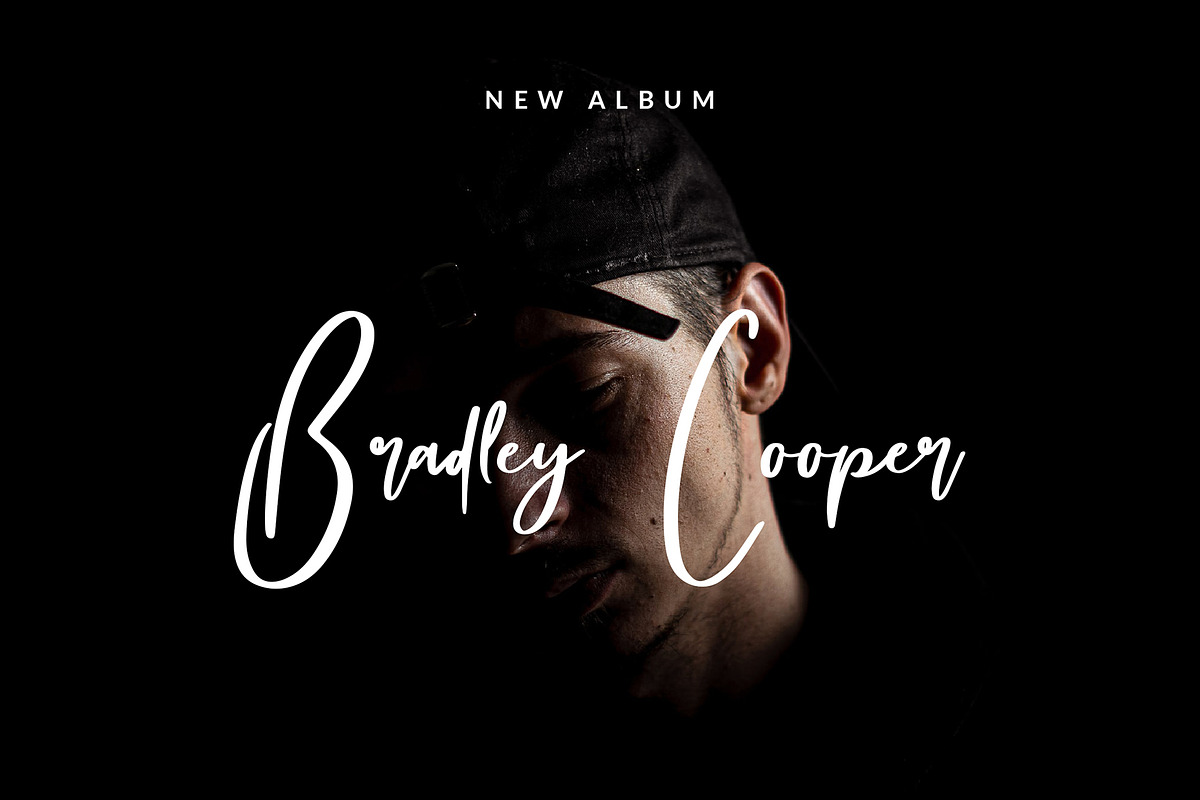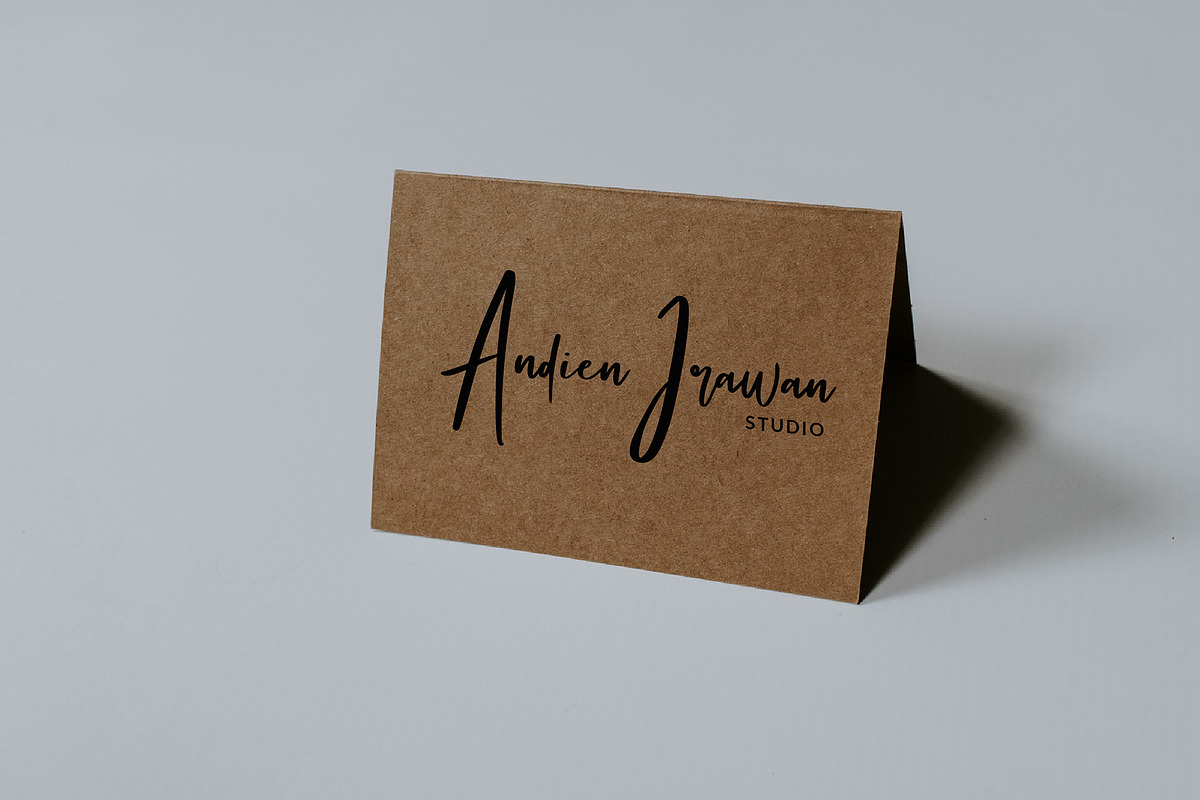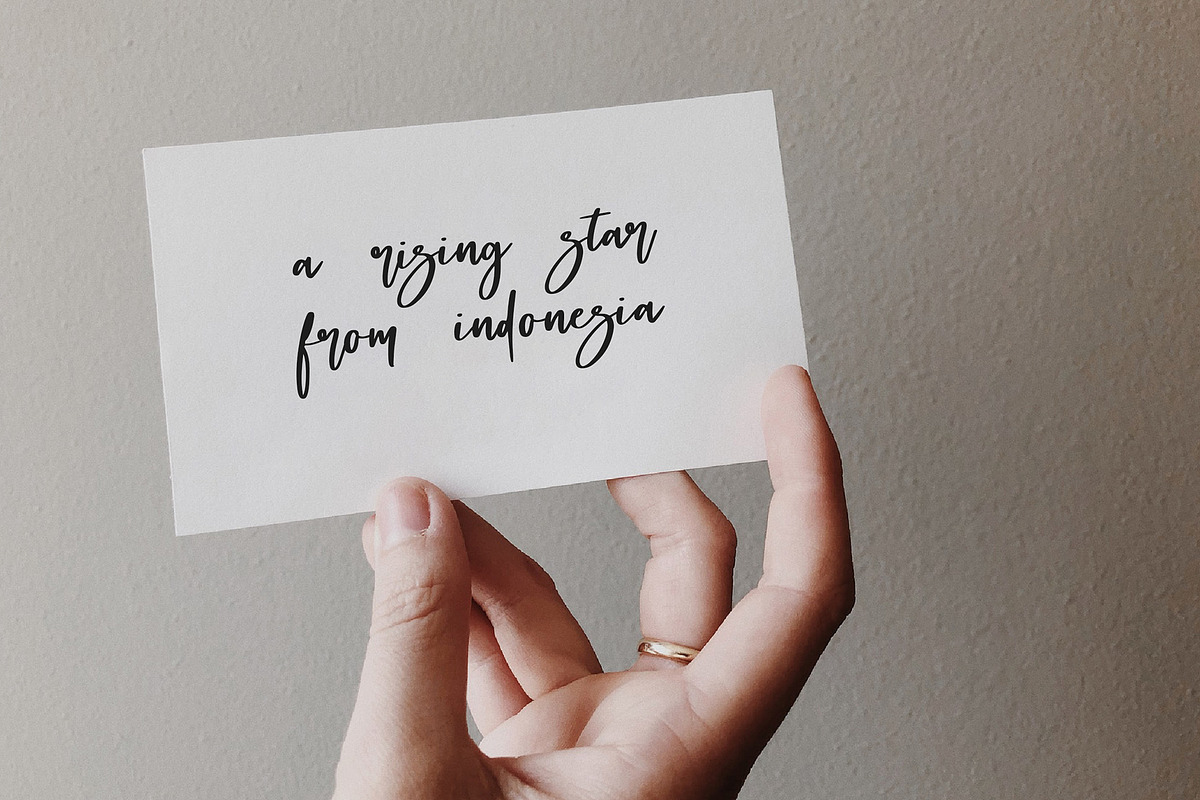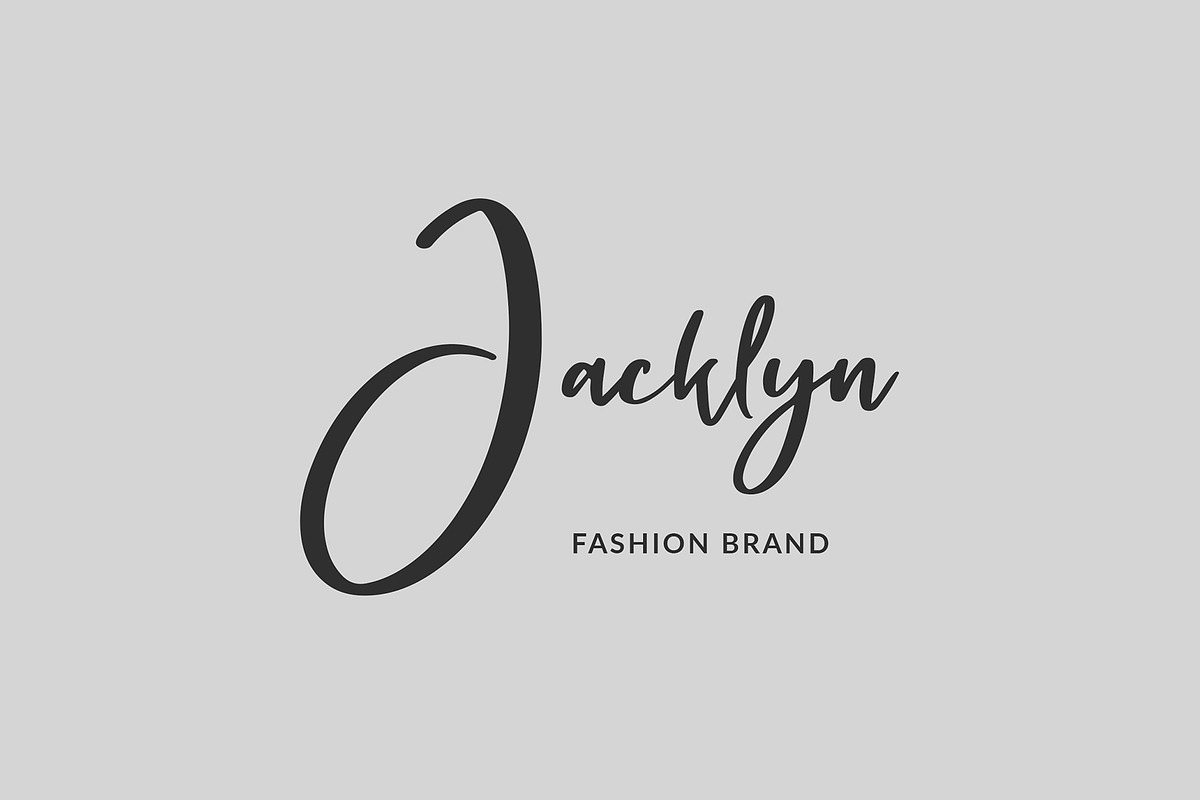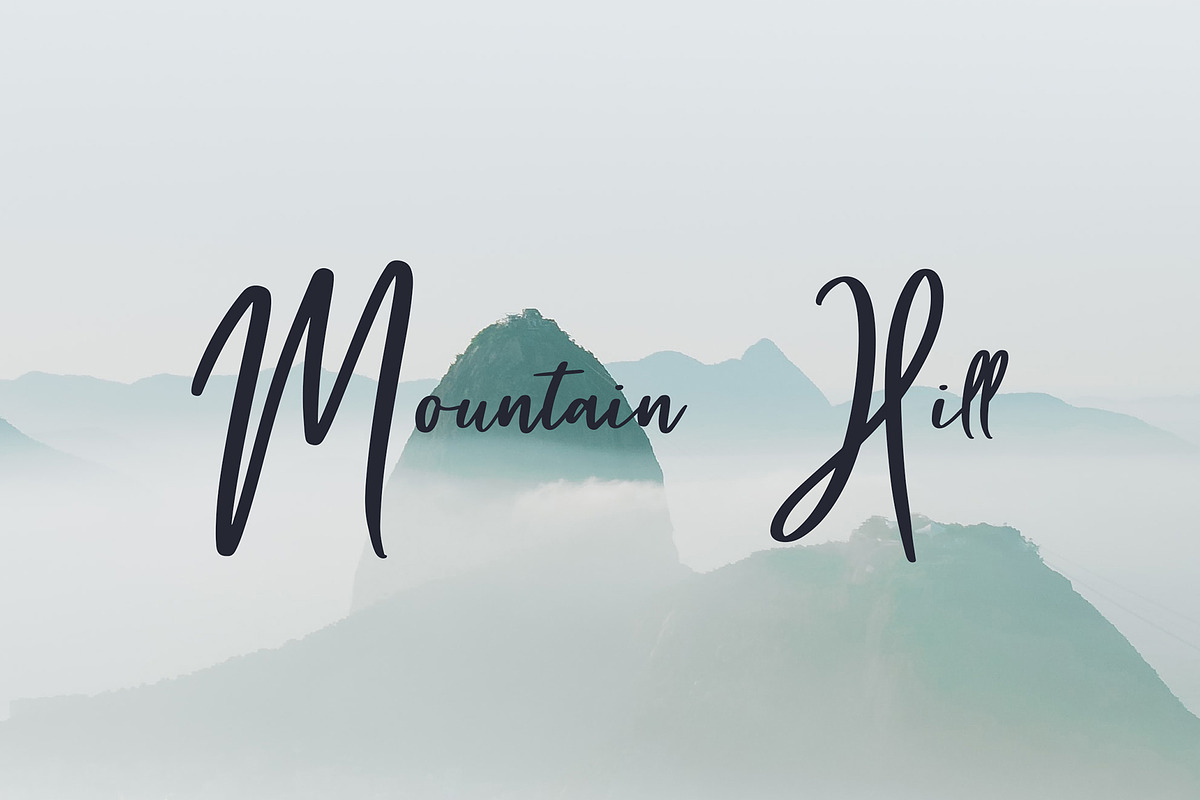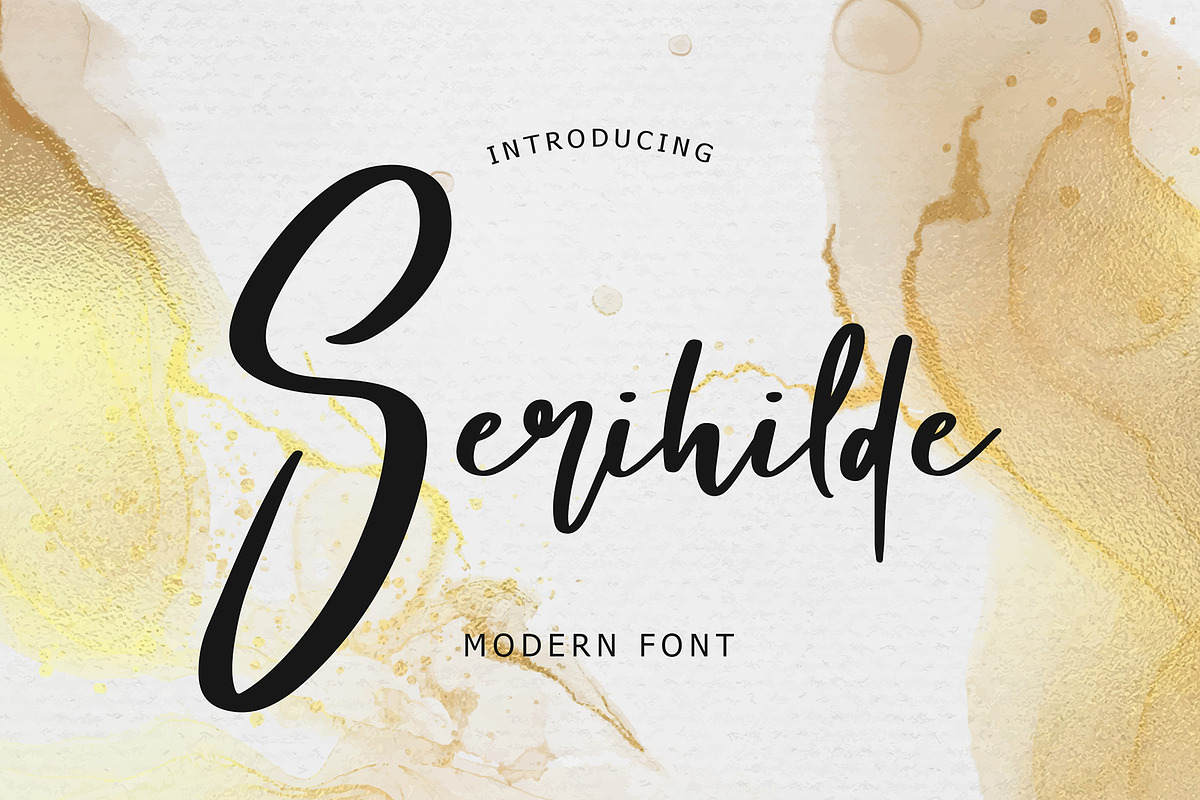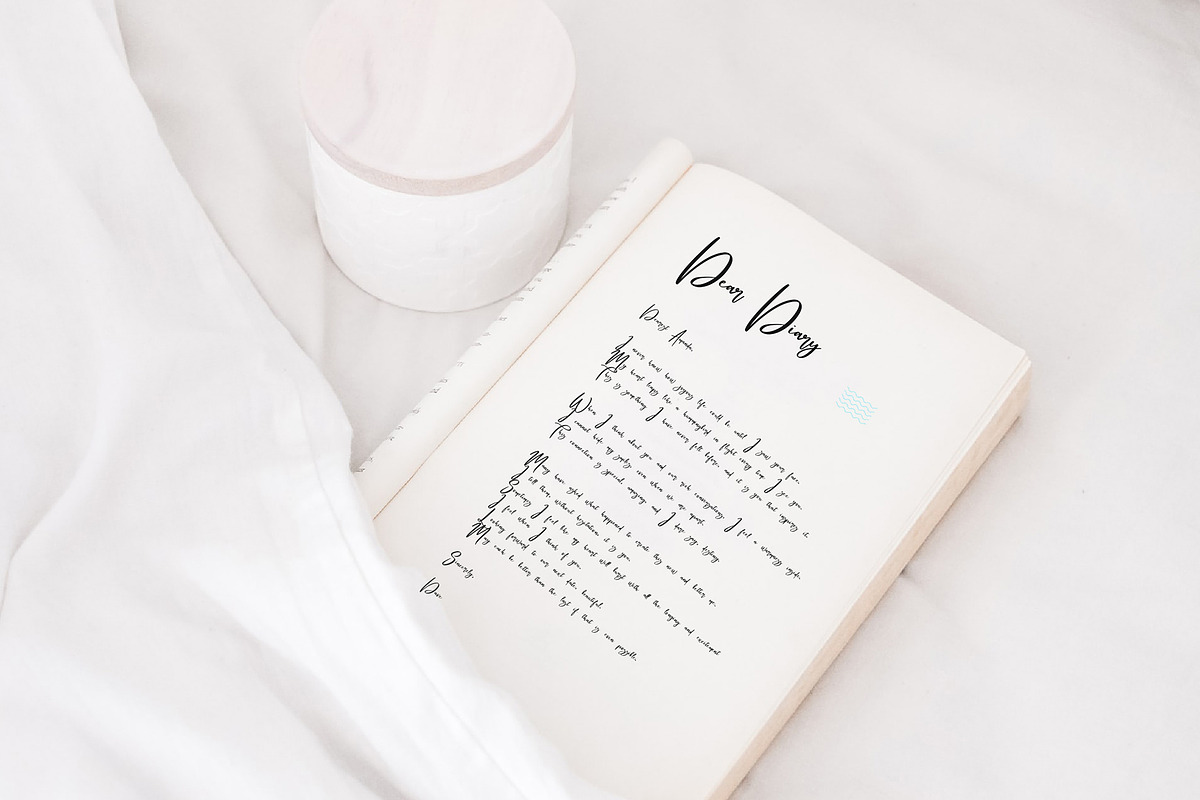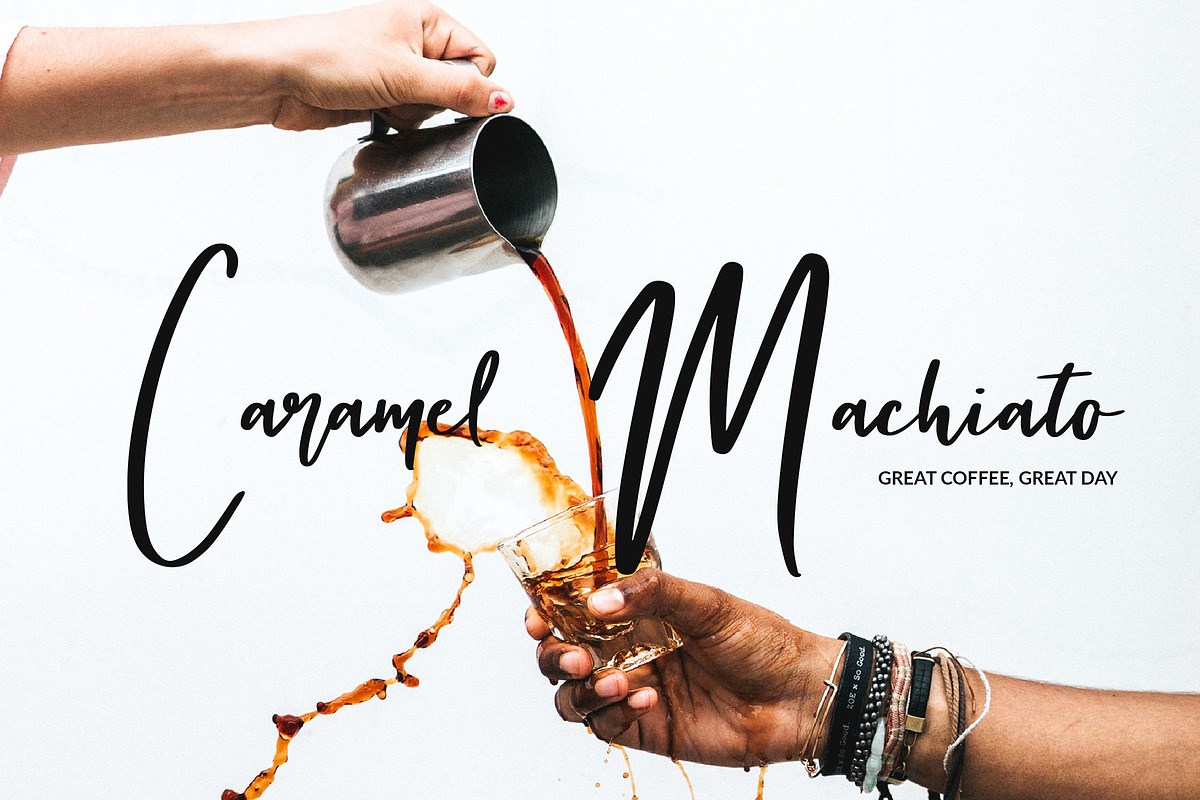
Serihilde Modern Script Font
Serihilde Modern Script Font is a modern look of Script font, can make your text appear elegant, luxurious, and modern!
Serihilde is perfect for branding projects, logo, wedding designs, social media posts, advertisements, product packaging, T-shirt design, product designs, label, photography, watermark, invitation, stationery, and any projects.
Serihilde Modern Script Font by Giant Design fits naturally into Branding, posters, packaging, typography.